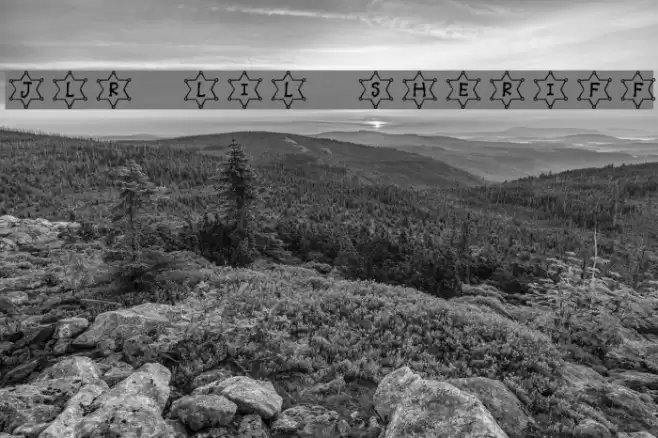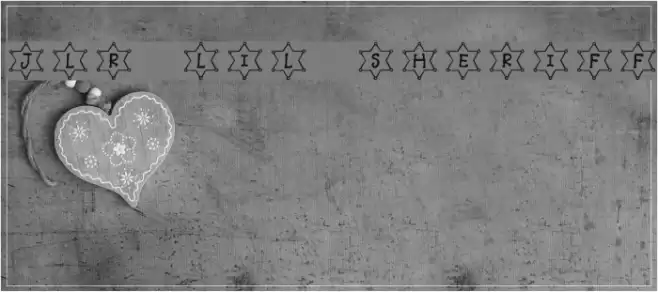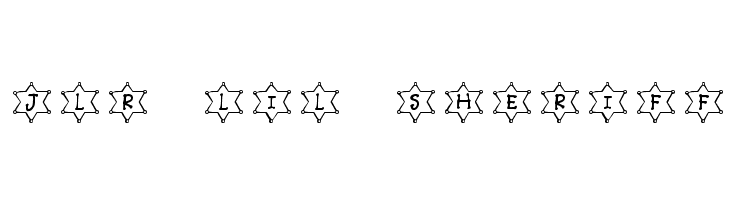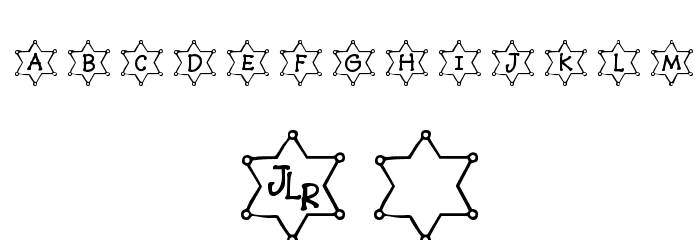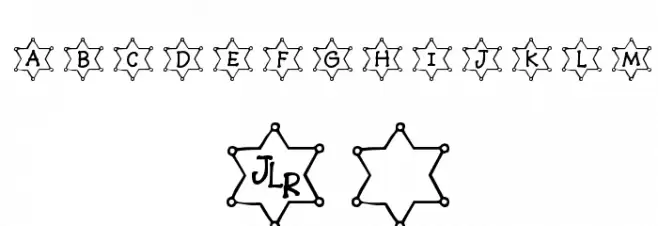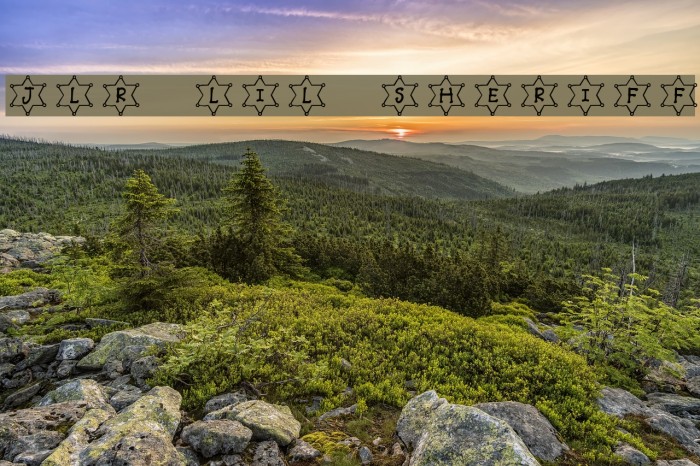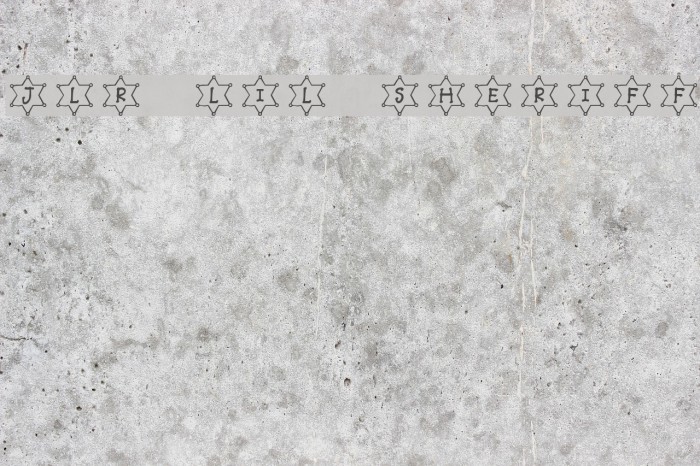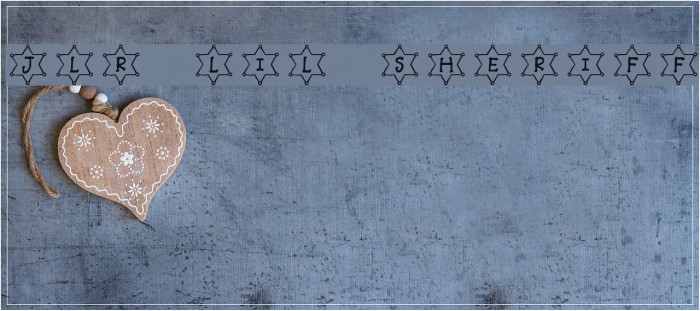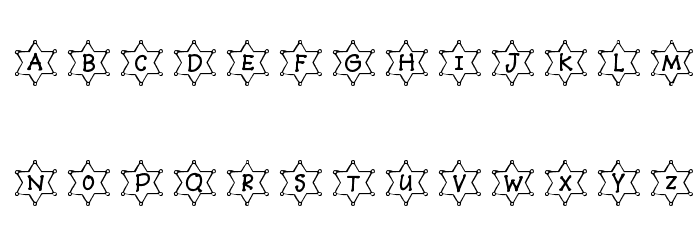
JLR Li'l Sheriff Font
JLR Li'l Sheriff Description
This playful and decorative font features each character enclosed within a sheriff's badge, giving it a distinctly Western and whimsical feel. The letters are bold and clear, making them easily readable despite the intricate design. The star-shaped badges add a unique touch, making this font ideal for themed projects. Its design is consistent across both uppercase and lowercase letters, as well as numbers and special characters, maintaining a cohesive look throughout.
A decorative font with characters inside sheriff badge shapes, perfect for Western-themed designs from Uncategorized fonts.
- Proposed Projects: Ideal for children's books, Western-themed posters, party invitations, and playful branding projects.